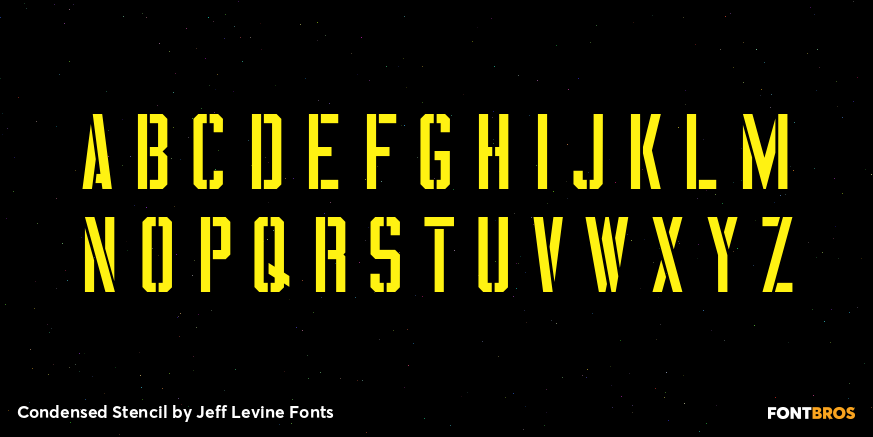
Condensed Stencil
Browsing online auctions is a wonderful way to pick up ideas for font designs. Take Condensed Stencil JNL for example. This font was modeled from a set of vintage brass interlocking stencils.
Condensed Stencil by Jeff Levine Fonts